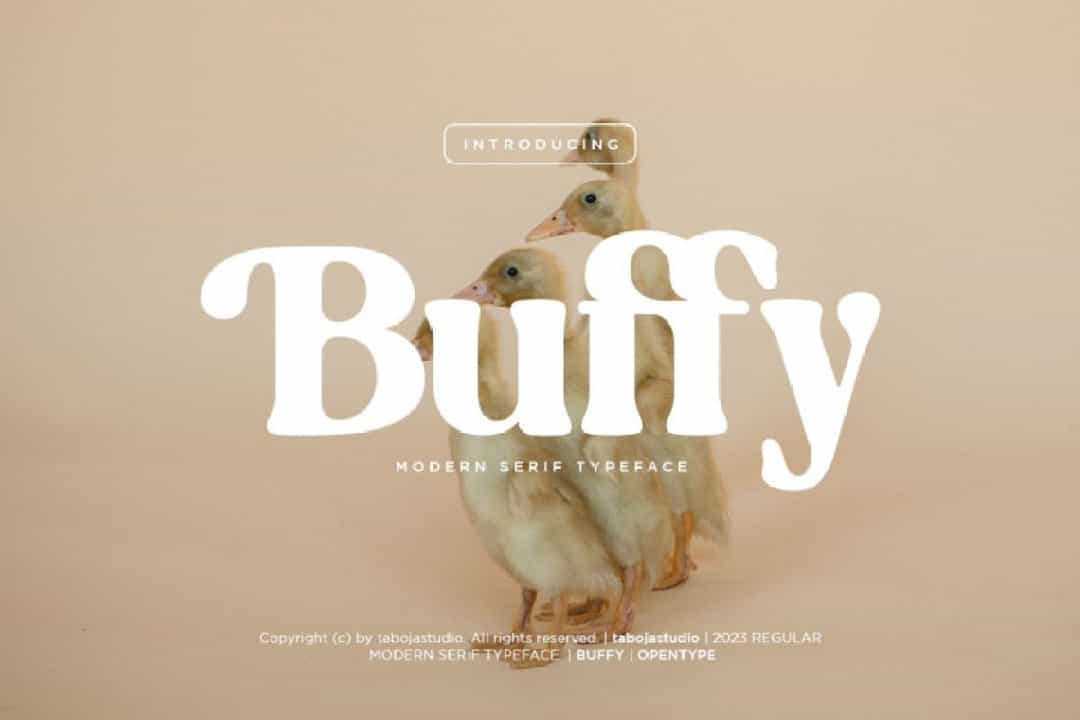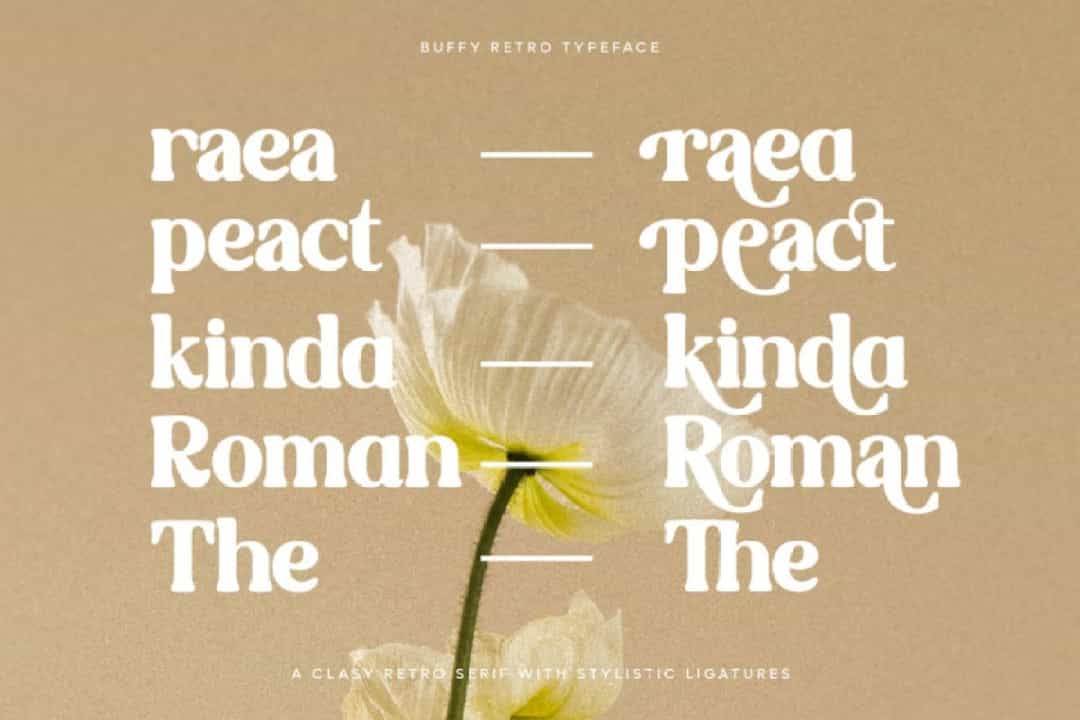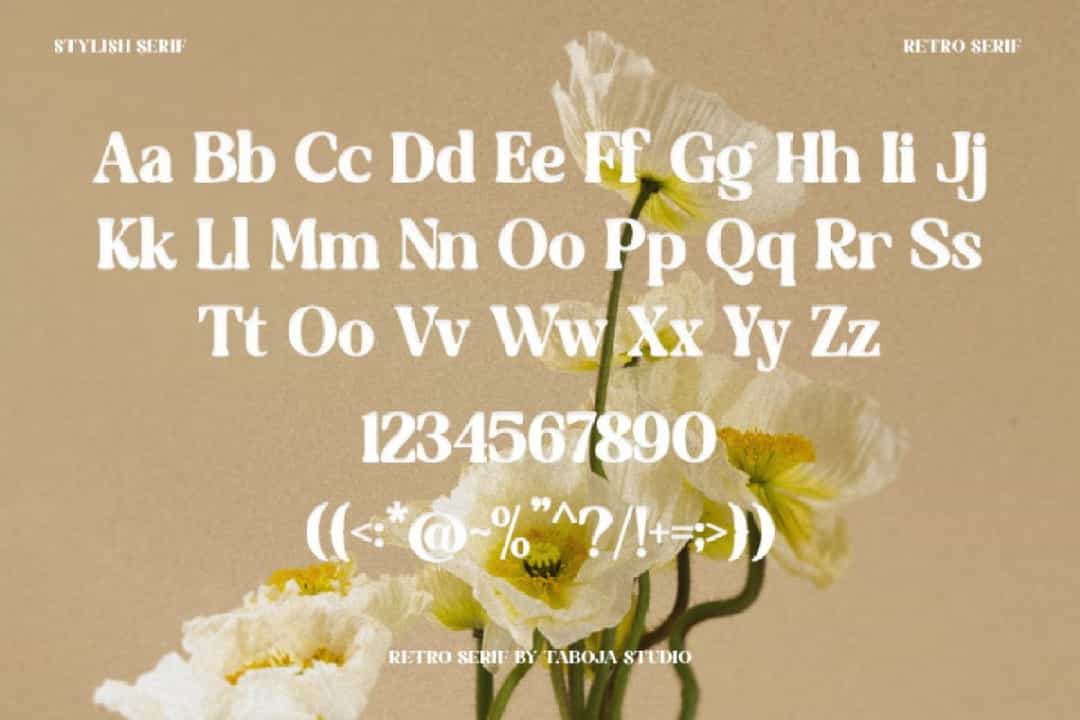
Buffy Elegant Serif Font is an eye-catching retro font with an appealing retro style of display. Combining classic serif features with modern elements to produce an appealing and captivating visual aesthetic. Buffy is ideal for poster designs, graphic design projects and layouts that require visually striking layouts or designs.